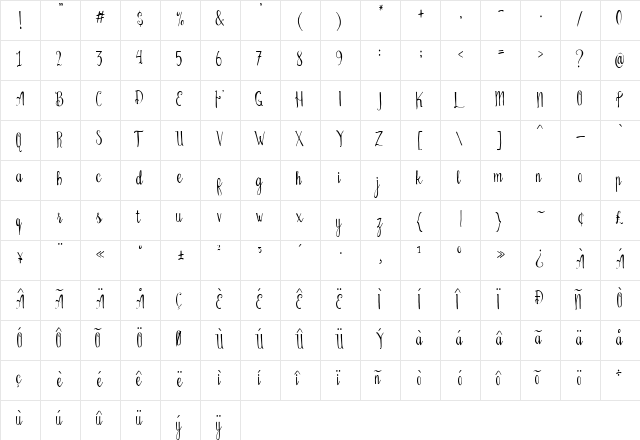
Bellanie Script Regular
Design Context for Bellanie Script Typeface
Bellanie Script flows with the natural rhythm of handwritten lettering, making it ideal for designs that call for warmth and personal expression.
Font Pairing: Combine Bellanie Script with a simple geometric sans for maximum contrast — the tension between flowing curves and clean structure is a classic typographic pairing.
Pro Tip: Pair Bellanie Script with a clean sans-serif for supporting text. The contrast between fluid script and geometric structure creates an elegant typographic hierarchy.